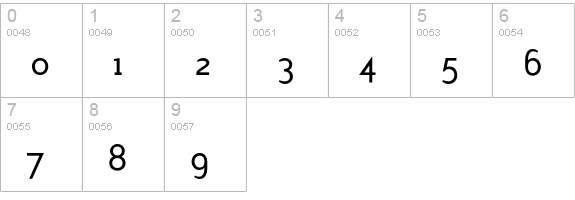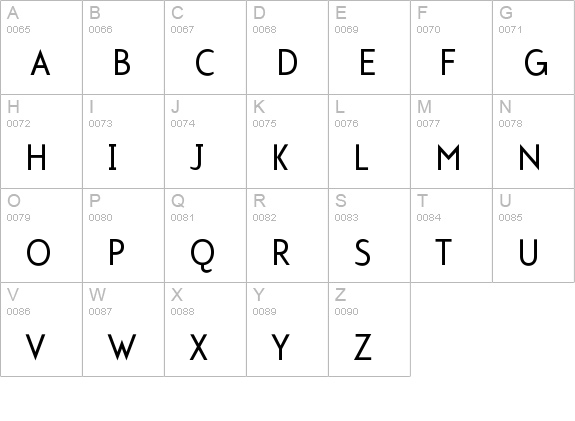
MercurySmallCaps Font Details
MercurySmallCaps is a stylish and sophisticated font that exudes elegance and professionalism. With its sleek and modern design, this font is perfect for adding a touch of class to any project. The small caps feature adds a unique flair to your text, making it stand out from the crowd. Whether you're designing a logo, creating a poster, or working on a presentation, MercurySmallCaps is sure to make a lasting impression. Best of all, MercurySmallCaps is completely free to download at FontsMarket.com. This means you can easily access this high-quality font without any cost, making it a valuable addition to your font collection. Don't miss out on the opportunity to elevate your design projects with MercurySmallCaps - download it today and see the difference it can make!